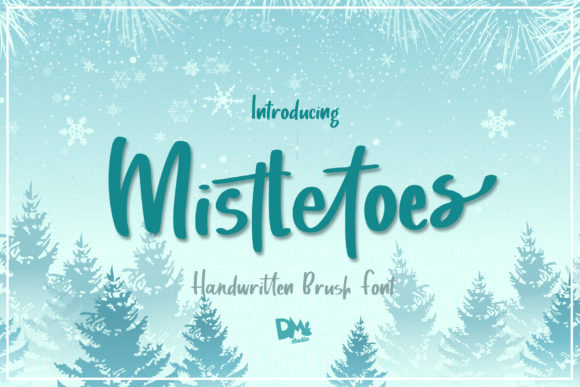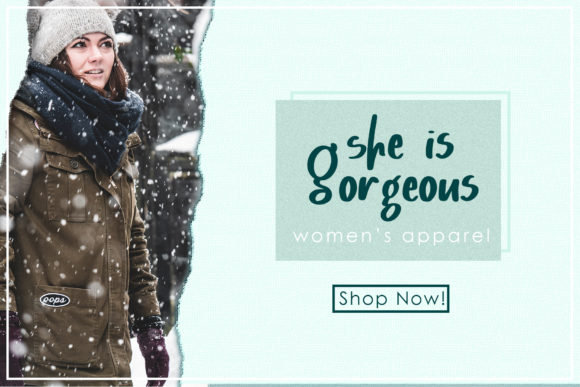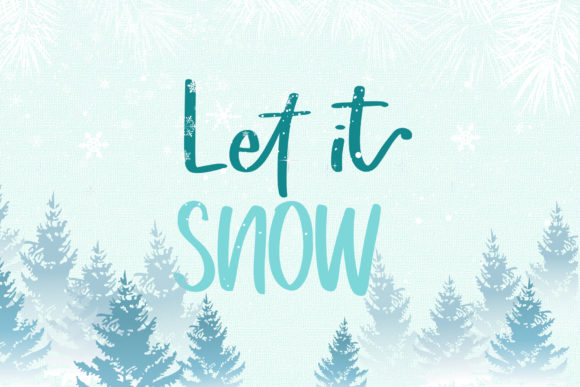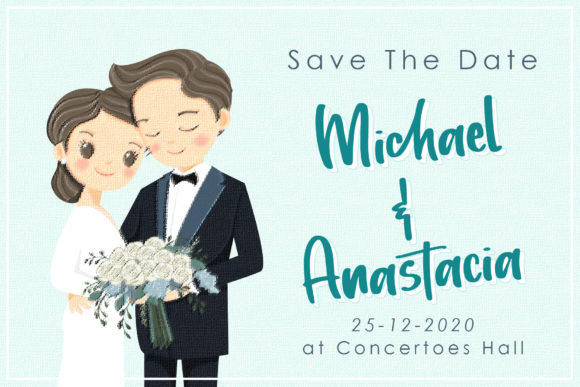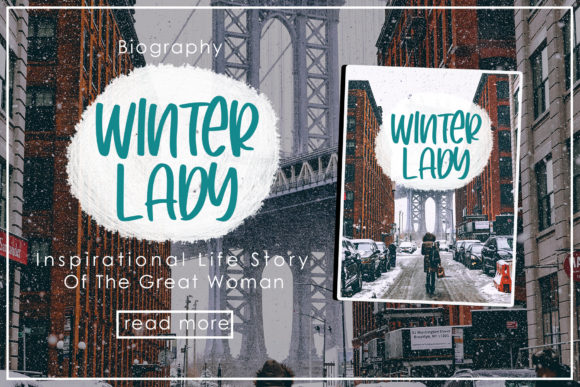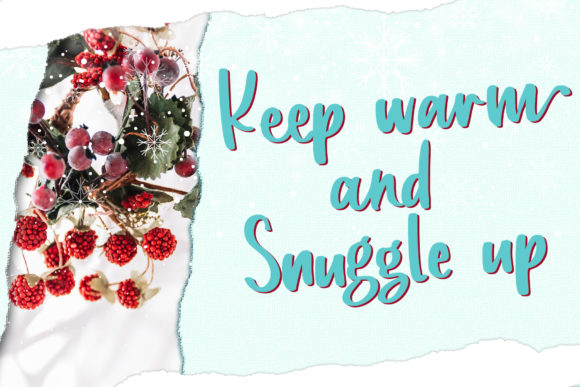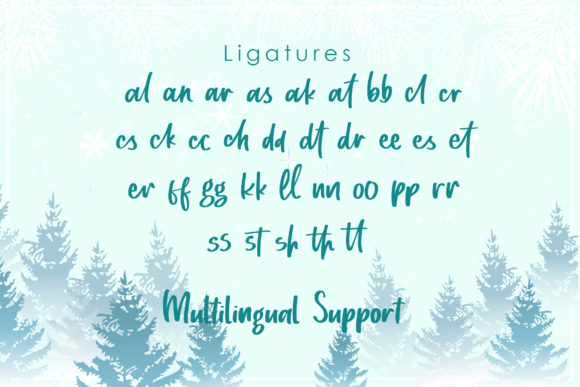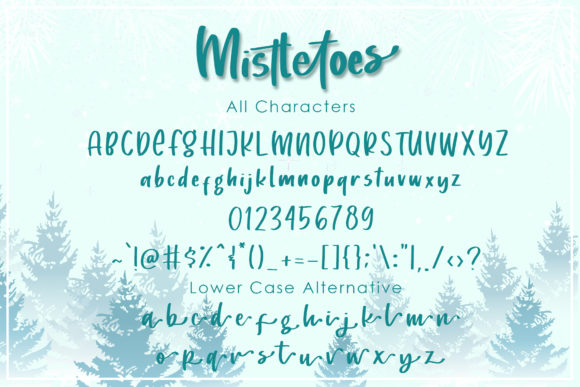
HomeScript FontsMistletoes Font Script Fonts Mistletoes Font FacebookXPinterestWhatsApp Mistletoes Font Poster 2 Mistletoes Font Poster 3 Mistletoes Font Poster 4 Mistletoes Font Poster 5 Mistletoes Font Poster 6 Mistletoes Font Poster 7 Mistletoes Font Poster 8 About Mistletoes Font Mistletoes is the ideal crafting font for all things Christmas! DOWNLOAD ON CREATIVE FABRICAThis font is sold and delivered by Creative Fabrica. Font Canyon may earn a commission if you buy through this link. People also explored Do Ya Font Happy Family Font Hearts Font Elosthin Font Stay Happy Font Kitchen Home Font Sweet Bestie Font Simple Market Font Cold Orange Font 345 0 TagsMistletoes Font Previous articleSwally FontNext articleMarlita Font LEAVE A REPLY Cancel reply Comment: Please enter your comment! Name:* Please enter your name here Email:* You have entered an incorrect email address! Please enter your email address here Website: Save my name, email, and website in this browser for the next time I comment. Personal Use Free Budmo Personal Use Free Read more about this font Setta Personal Use Free Read more about this font Bitcrusher Condensed Bold Personal Use Free Read more about this font Tomatoes Personal Use Free Read more about this font BLOG To increase your work productivity, choose the most readable fonts. In today's fast-paced work environment, where digital communication and information consumption are integral to our daily routines, the choice of fonts can significantly impact... Best Fonts for YouTube Videos: Make Your Thumbnails Stand Out Exploring Font Trends Free Fonts Risk: Why Free Fonts Can Be Dangerous for Designers